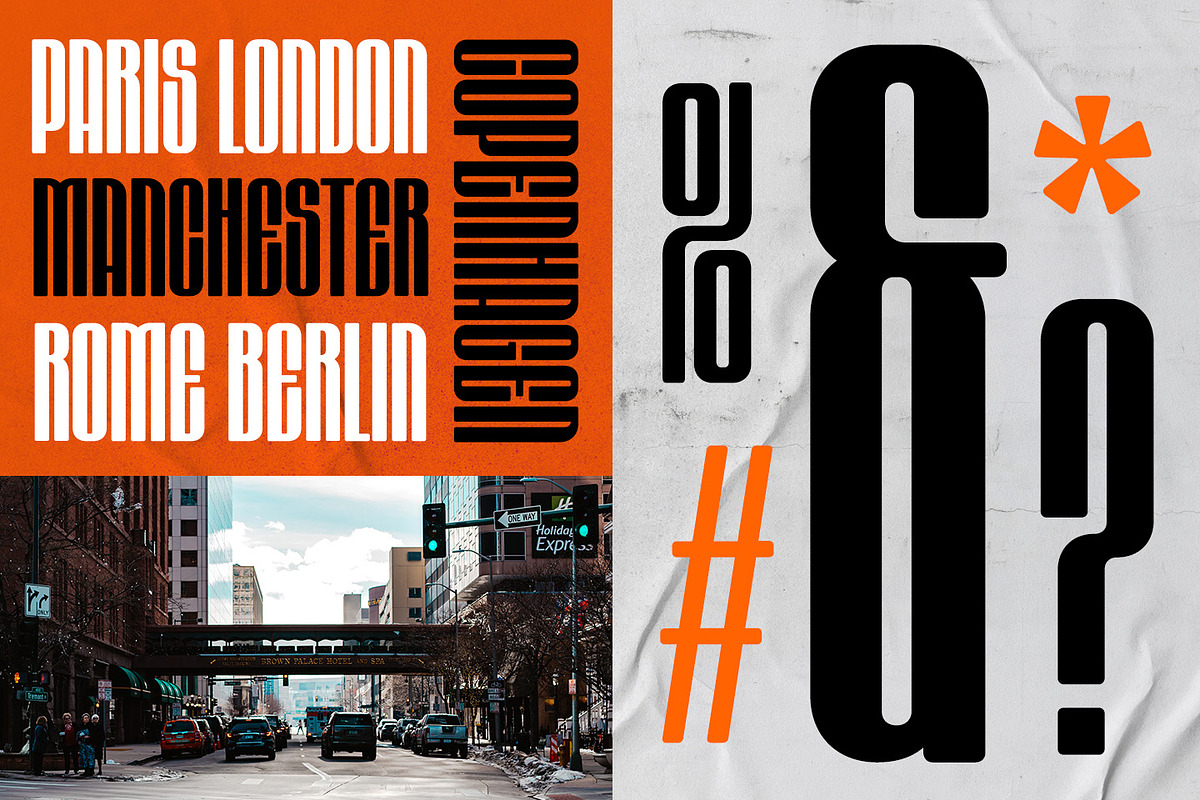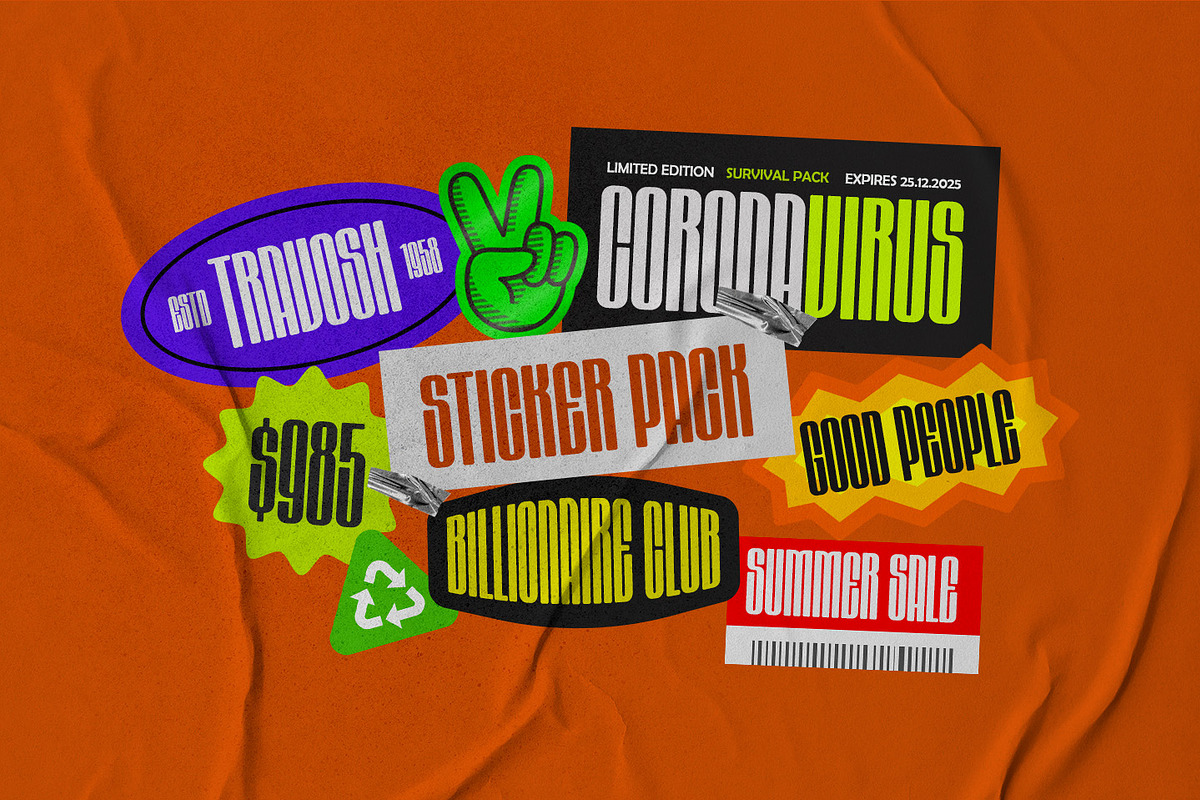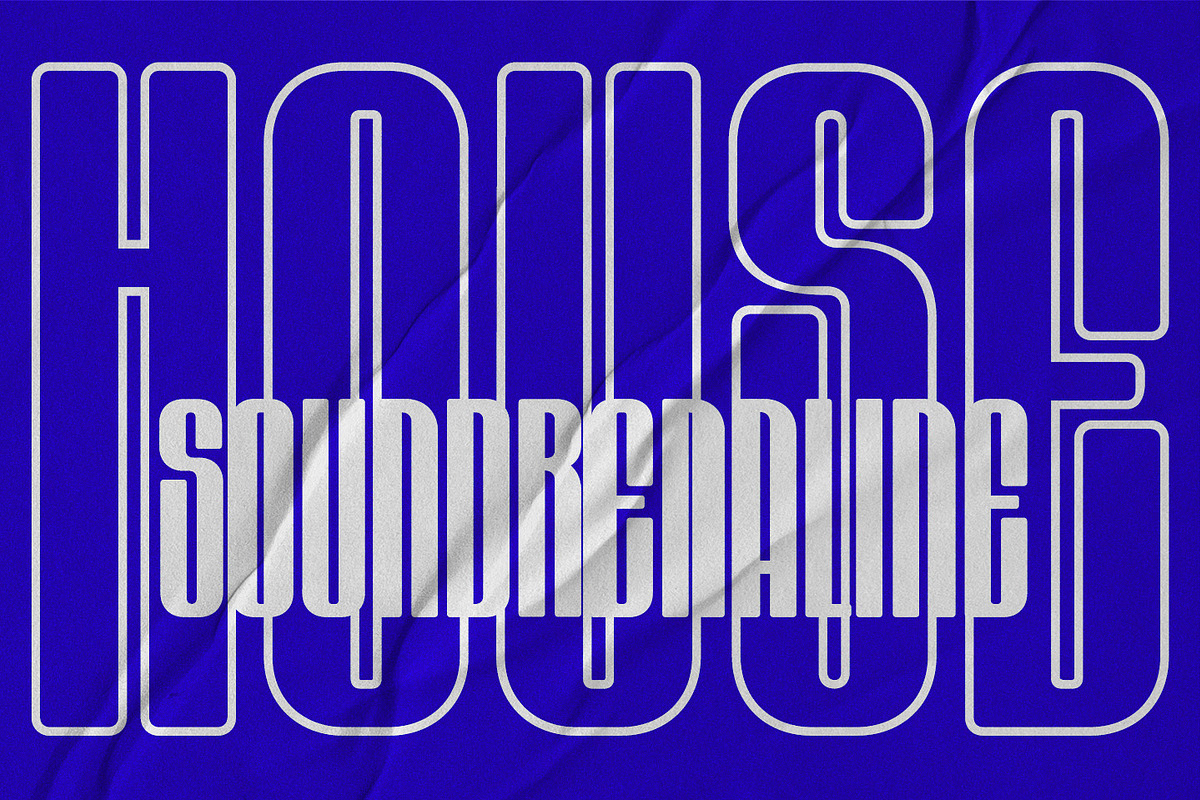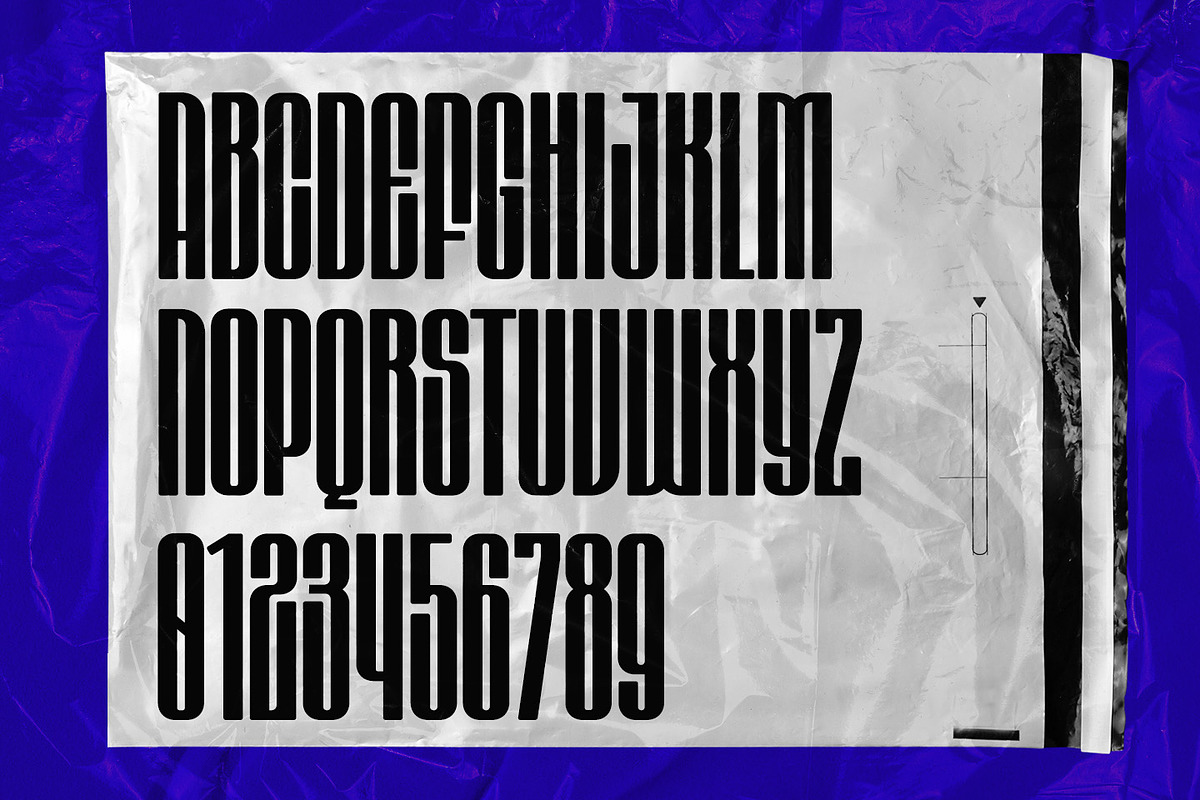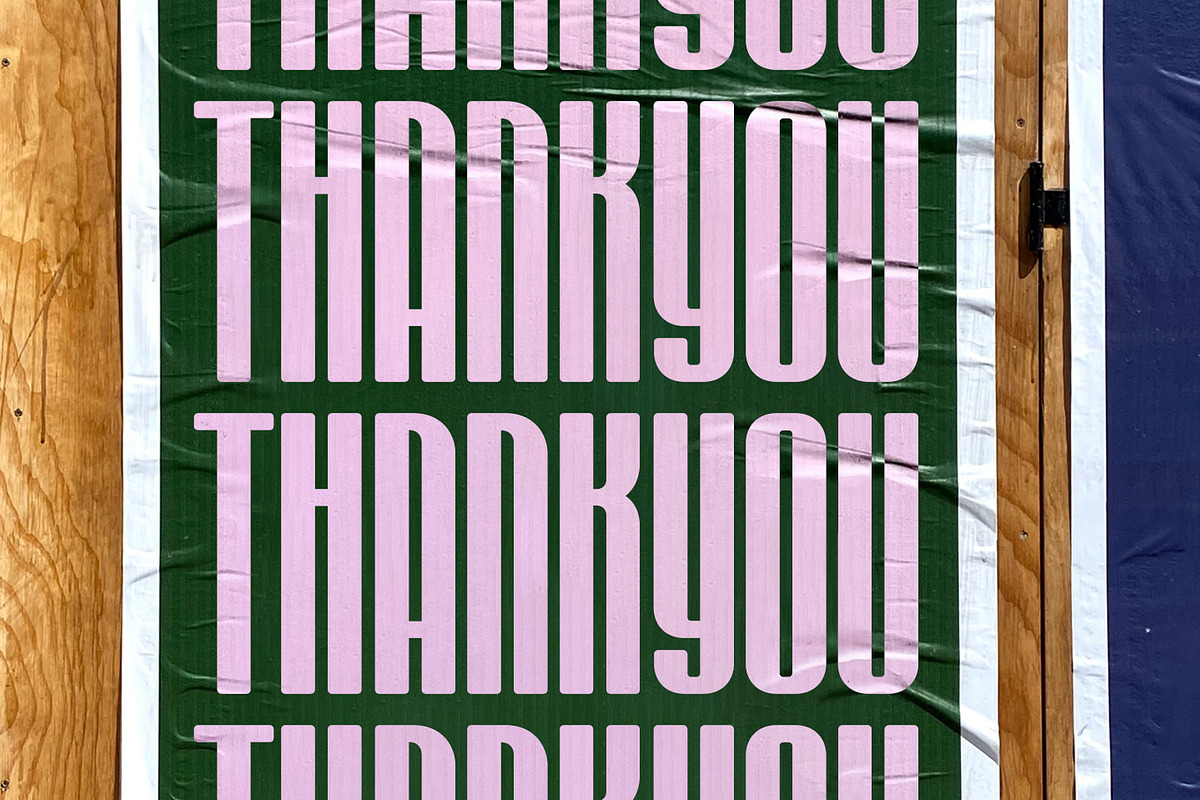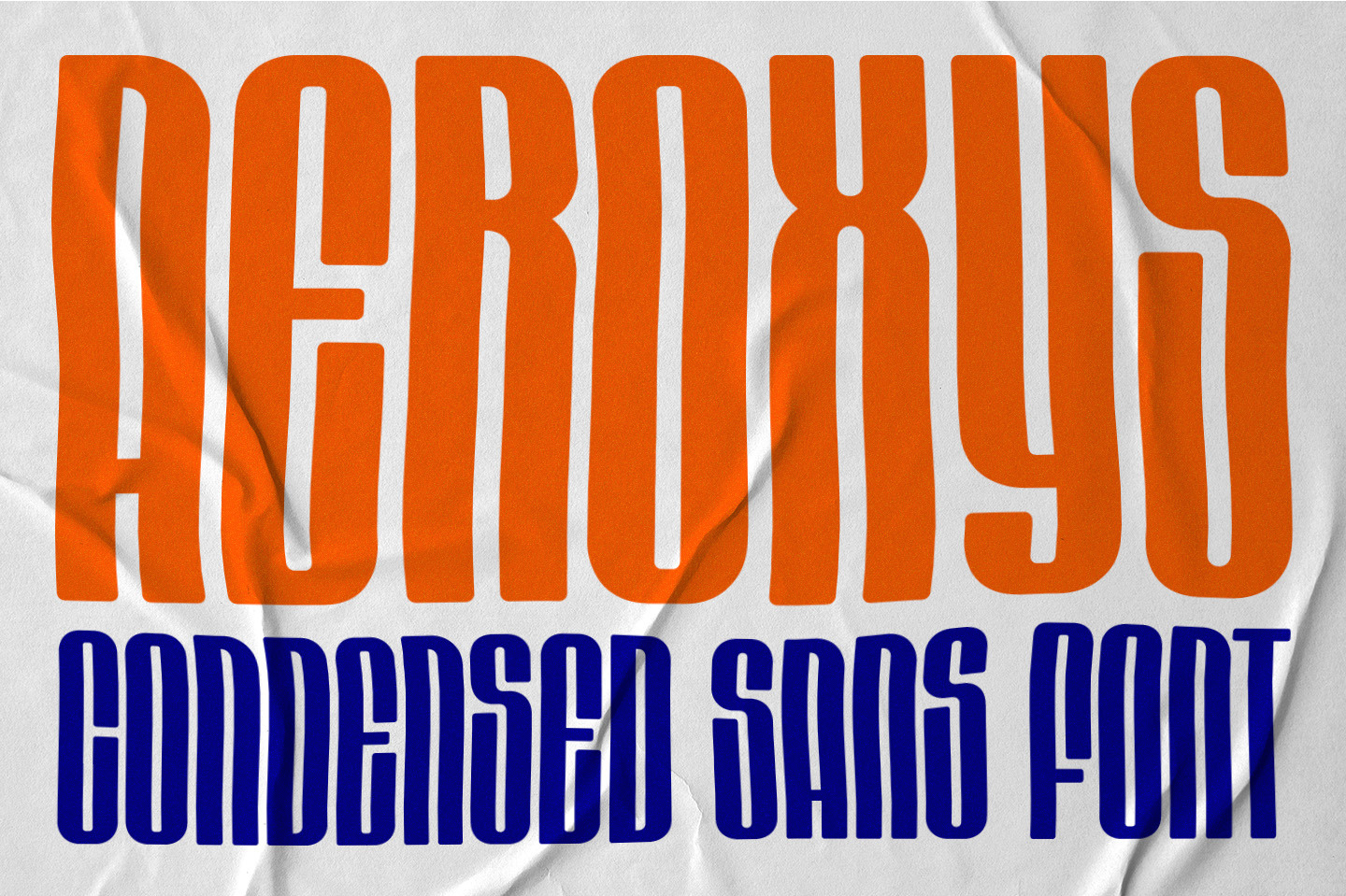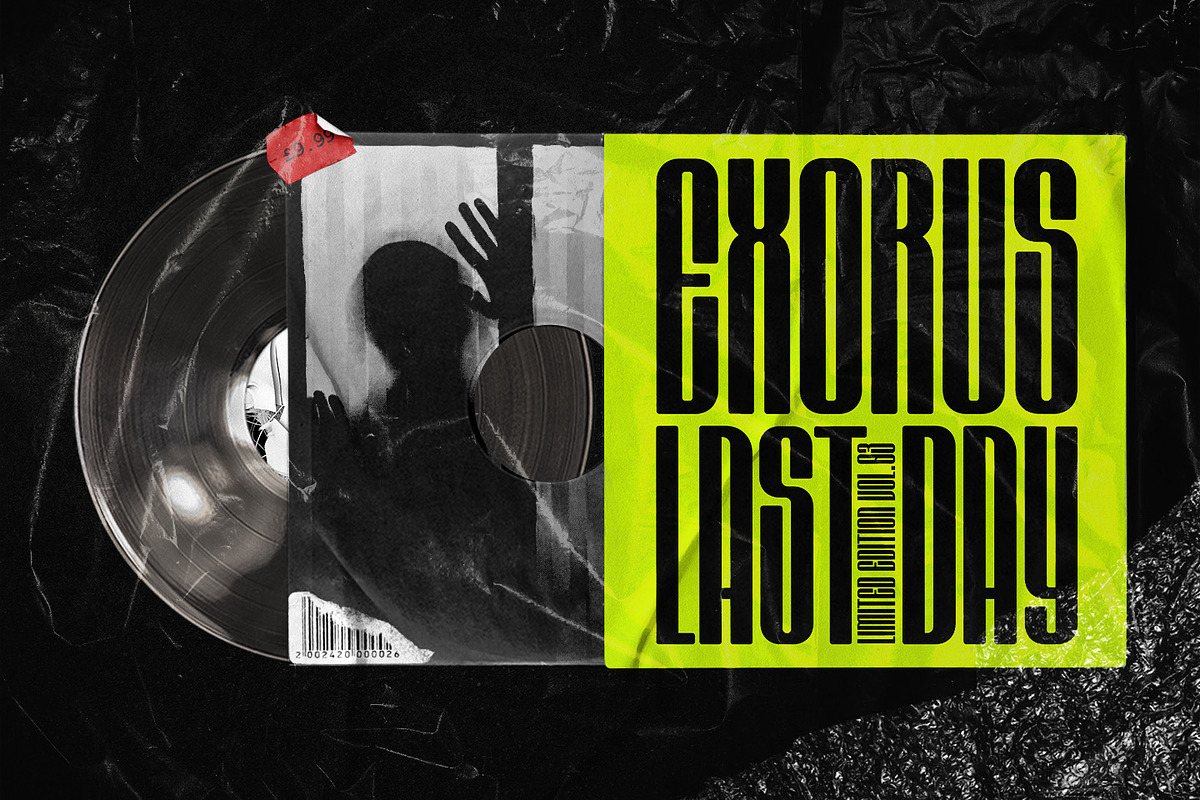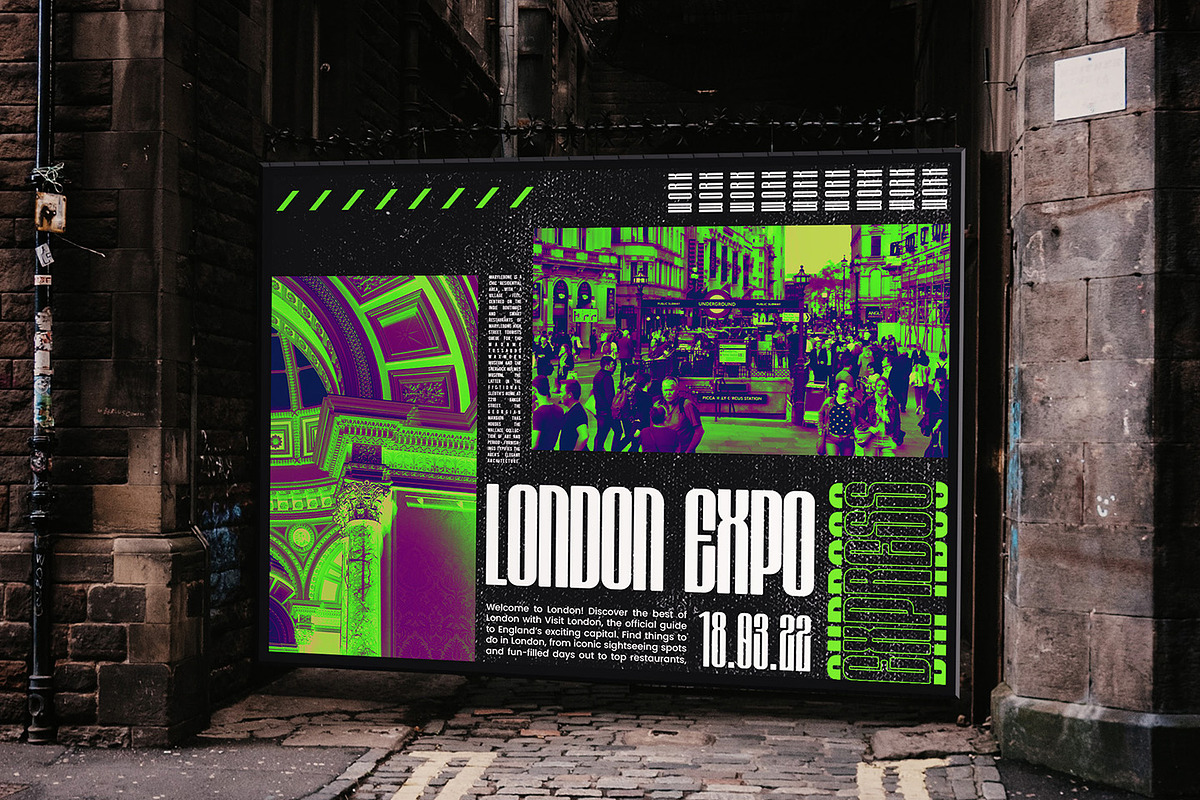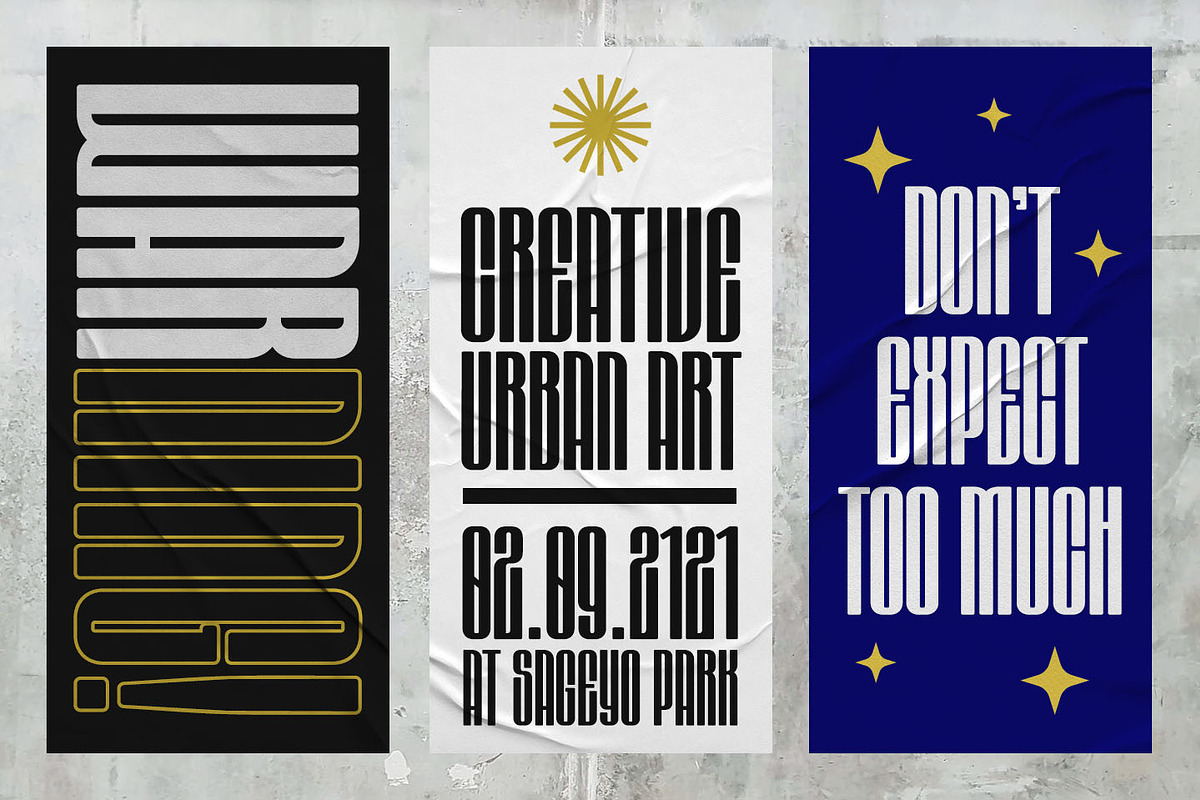
Aeroxys Condensed Display Sans Font
Aeroxys is an condensed sans serif display font, and with a style that is very different from the others. This font comes in four styles, Regular, Oblique, Outline, and Oblique Outline Version.
Aeroxys is well-suited for posters, social media, headlines, magazine titles, clothing, large print formats - and wherever you want to be seen. Inspired by the style of design that is currently popular, and this is the answer to all the needs of every idea that you will pour in this modern era.